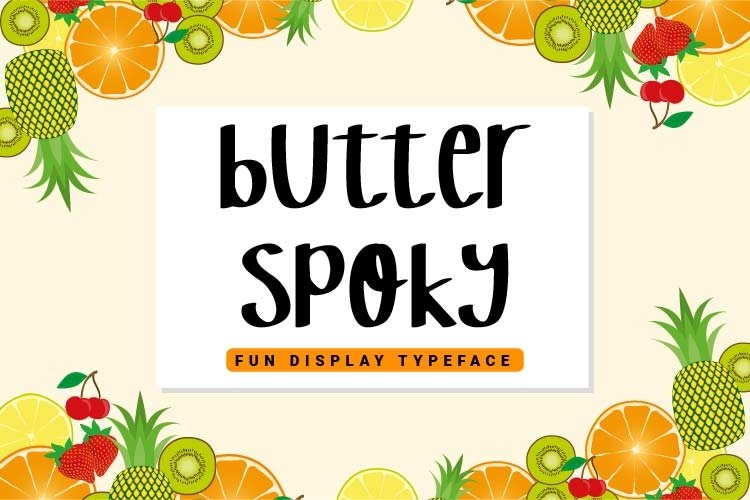
Butter Spoky font very suitable for your creative project. Can be applied to print or digital media such as crafts, clothing, food product packaging, logos and many more. See the preview to see some images.